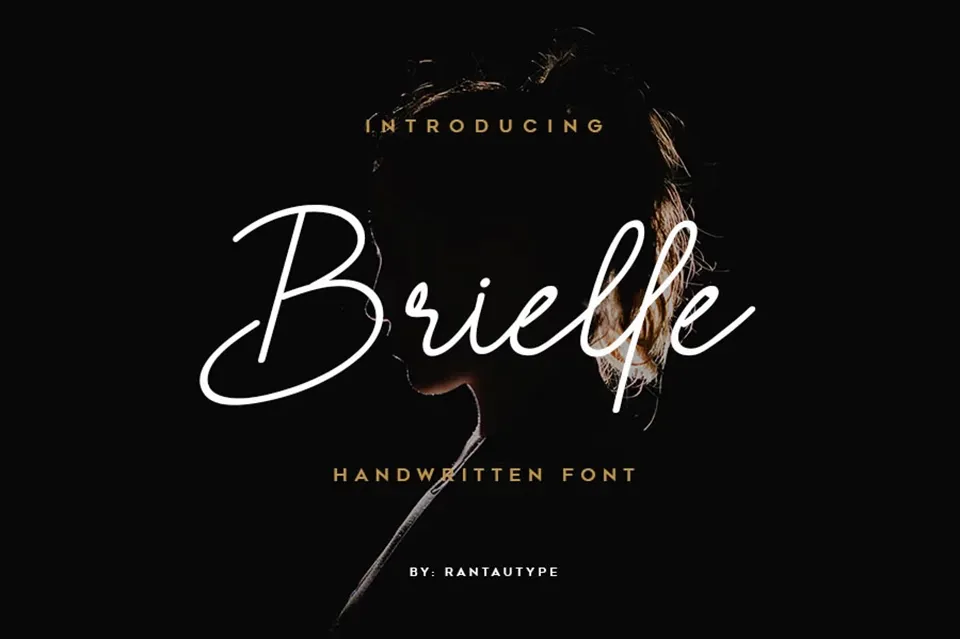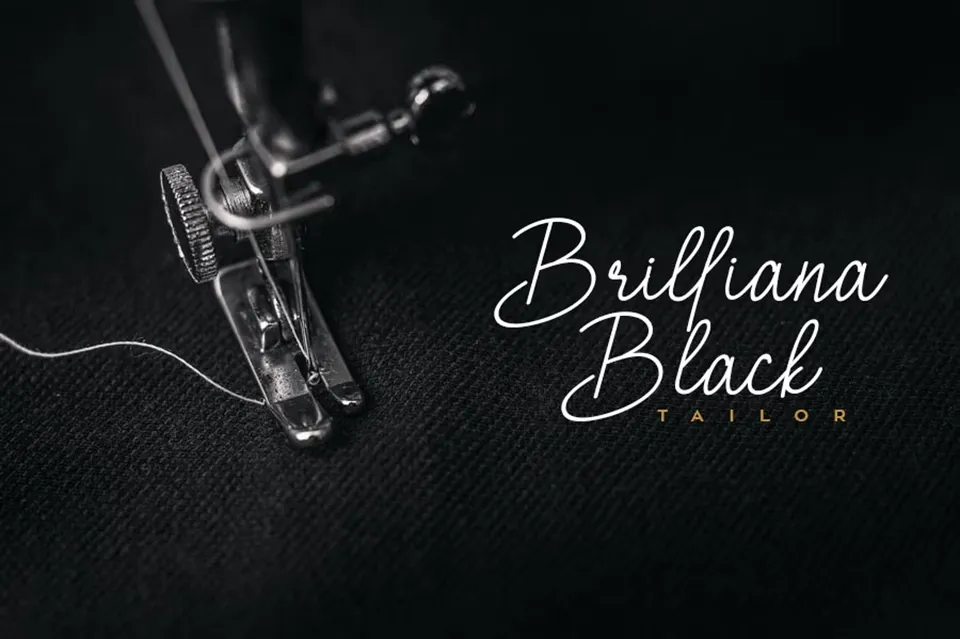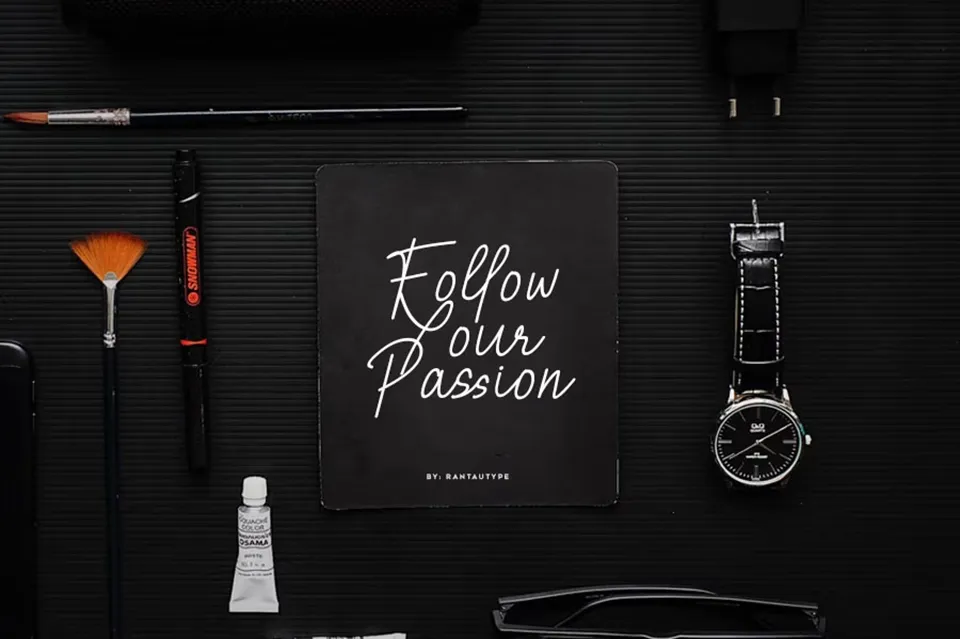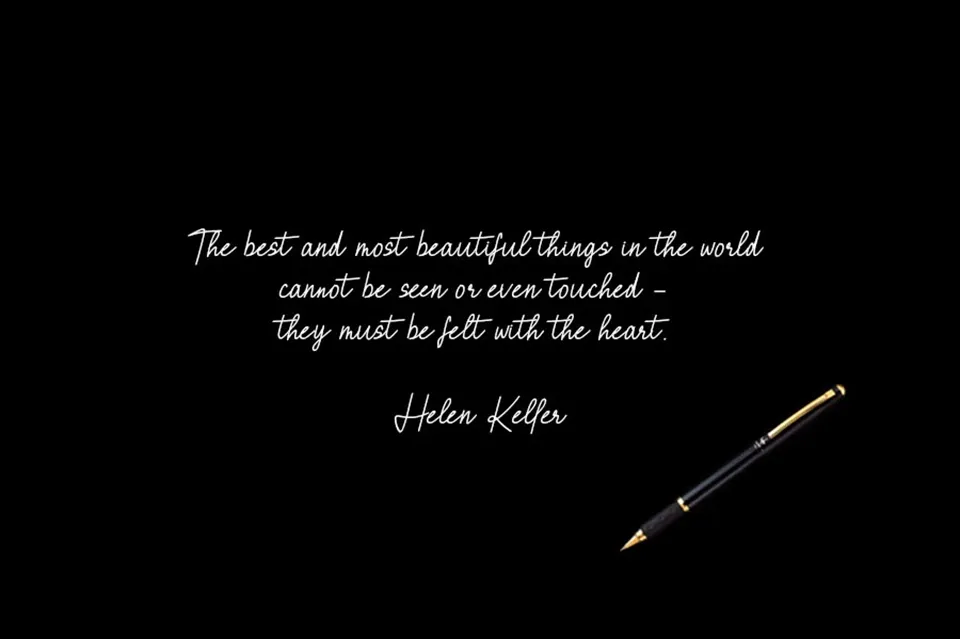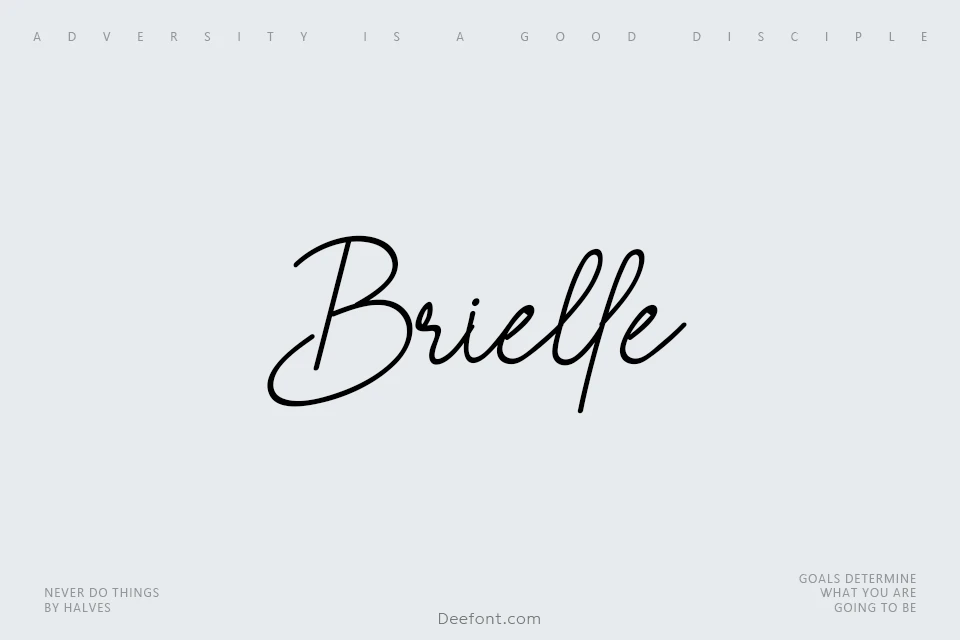
Brielle Font
Brielle Font is a beautiful handwritten typeface created by Rantautype. This font features elegant, flowing script characters that mimic natural handwriting, adding a personal and sophisticated touch to your designs. Its modern style is perfect for invitations, branding, logos, signatures, wedding stationery, and social media graphics. Brielle brings a sense of grace and authenticity, making it ideal for projects that require a delicate, handcrafted feel. Elevate your creative work with the charming and stylish appeal of Brielle Font.